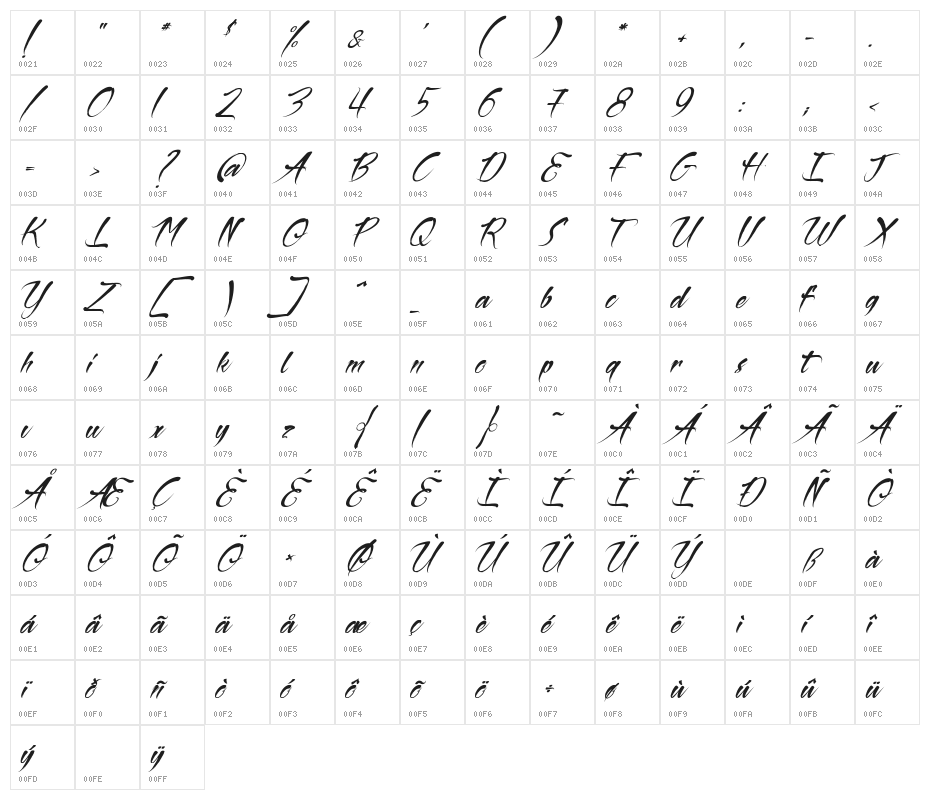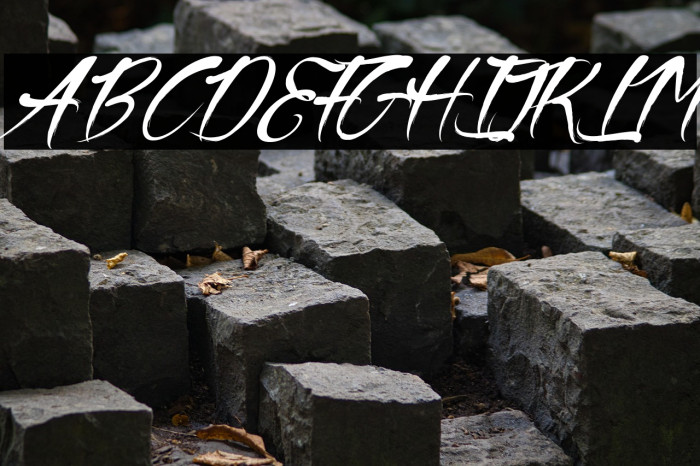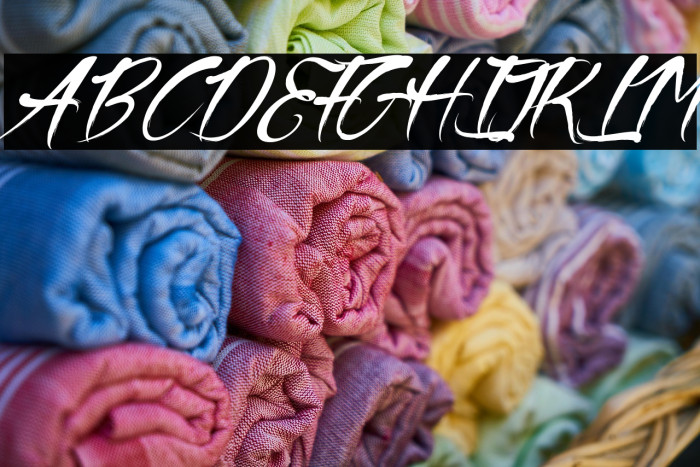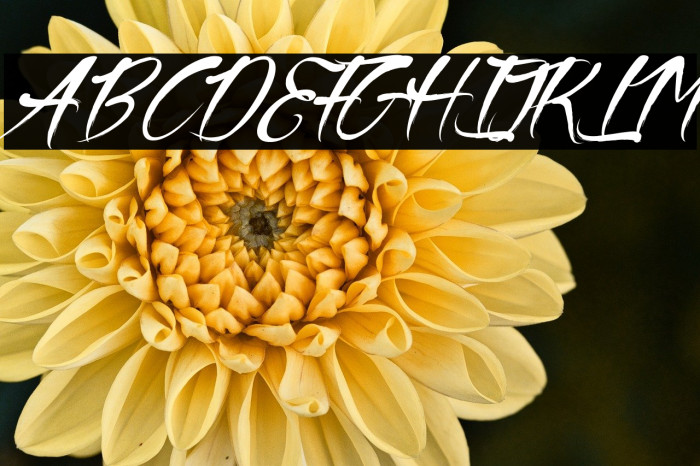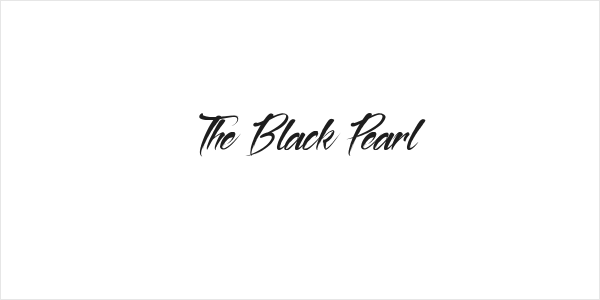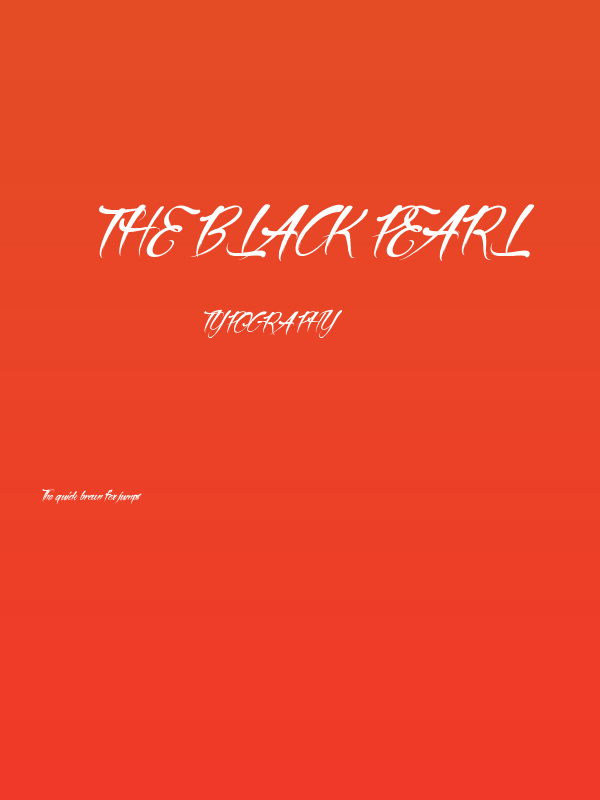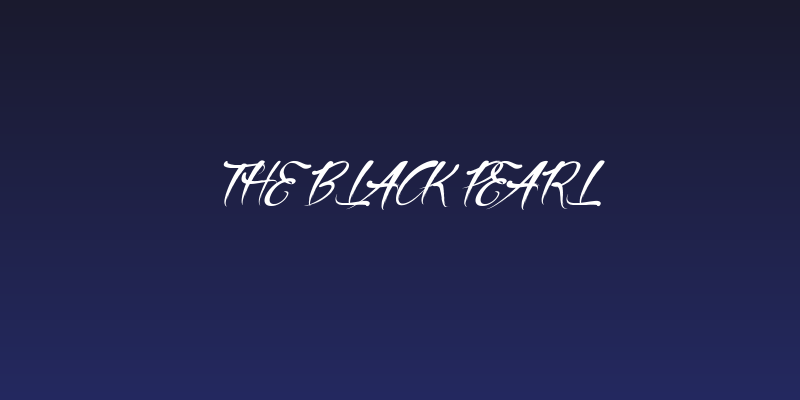
The Black Pearl Font
The Black Pearl Description
This font exudes a dynamic and energetic style with its bold, sweeping strokes and fluid, cursive design. The uppercase letters are characterized by their dramatic flourishes and sharp angles, creating a sense of movement and flair. The lowercase letters maintain this fluidity, with a slightly more restrained elegance that complements the uppercase. Numbers and special characters follow the same expressive style, ensuring consistency across all elements. The overall appearance is both artistic and modern, making it suitable for creative and eye-catching designs.